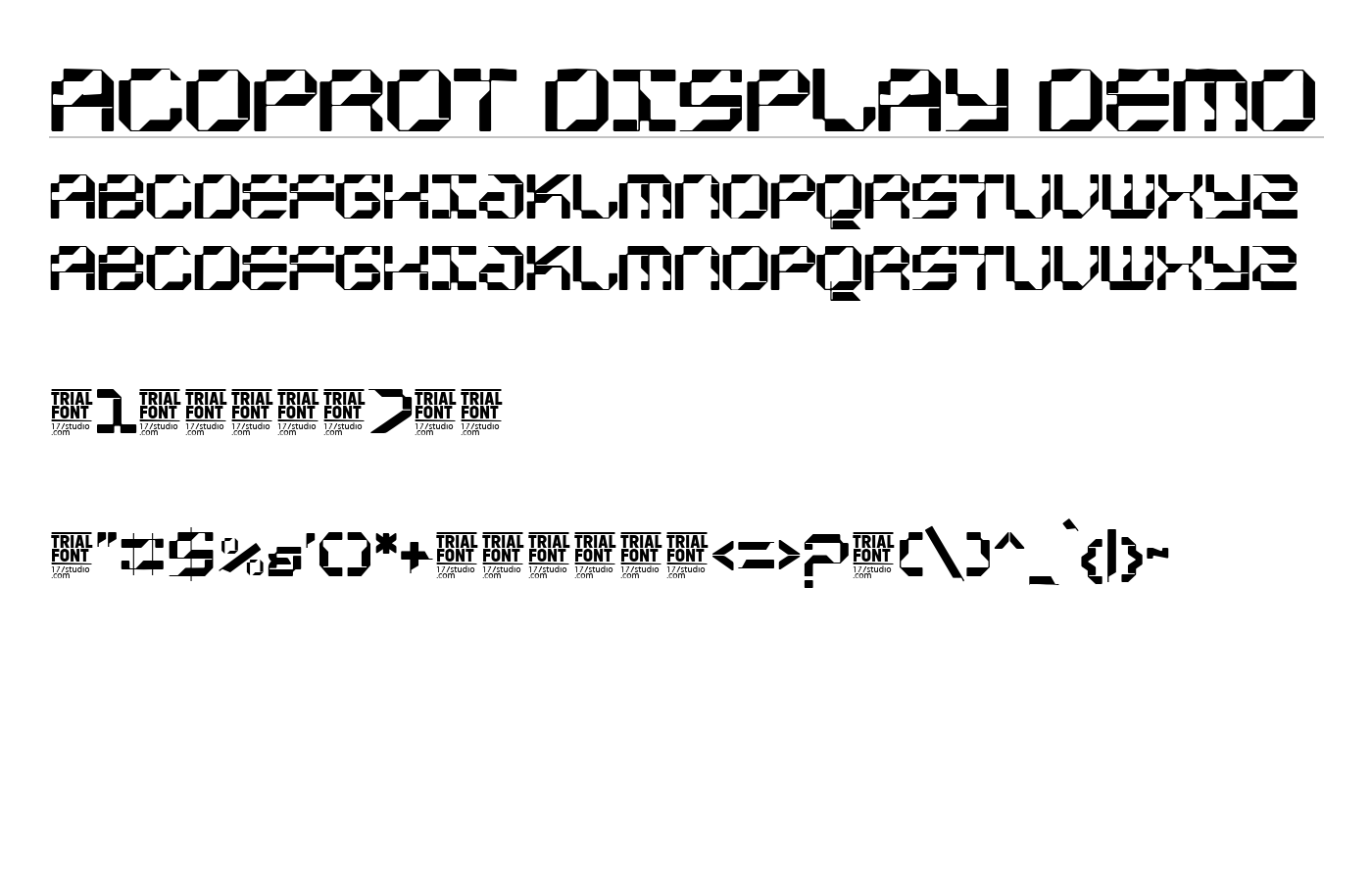
Acoprot Display Demo is a bold, geometric sans serif font with a futuristic, modular aesthetic characterized by sharp angles and blocky forms. Its highly stylized design with strong contrast and unique letter shapes makes it ideal for eye-catching headlines, logos, and technology-oriented branding where a modern, edgy personality is desired. This font works best in large sizes for display purposes, adding a distinctive, contemporary vibe to creative projects.
Acoprot Display Demo Font
About Acoprot Display Demo Font